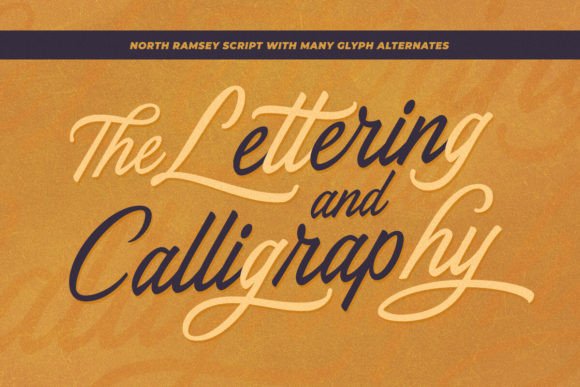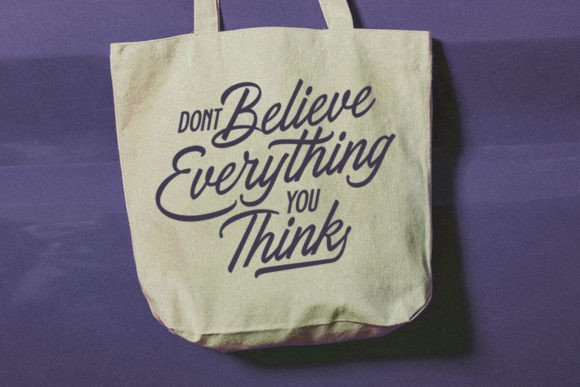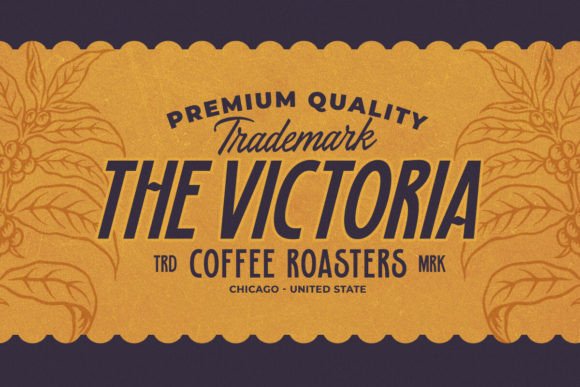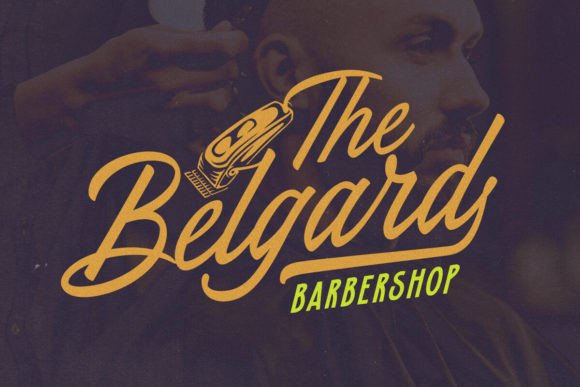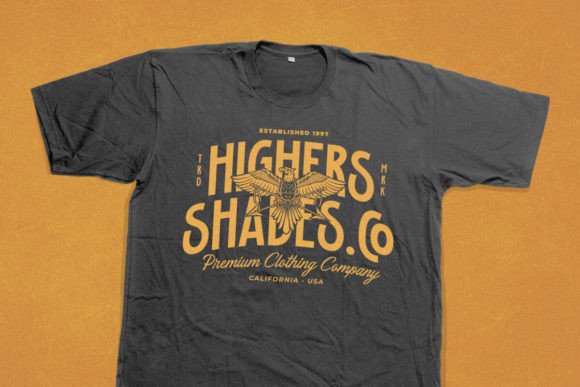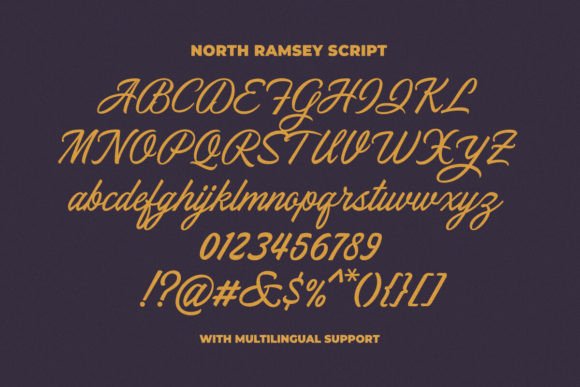
Introduction to North Ramsey Font Font
Fonts play a crucial role in design, and the North Ramsey Font font is a typeface that brings both character and versatility to any project. Whether you’re working on a branding project, a website, or a print design, the North Ramsey Font font offers a unique style that can elevate your work.
North Ramsey – Vintage Font Duo is a sans font that comes with script, both will match perfectly.
The vintage feel is really perfect for you who needs a typeface for especially logotype, apparel, branding, packaging, advertising etc .
Key Features of North Ramsey Font Font
Why Choose North Ramsey Font Font?
The North Ramsey Font font is more than just a typeface – it’s a design tool that helps you communicate your message with style and clarity. Its unique character set and versatile design make it suitable for a wide range of applications, from elegant invitations to bold headlines.
With its carefully crafted letterforms and balanced proportions, the North Ramsey Font font ensures readability and visual appeal across all mediums.
What makes North Ramsey Font font special?
The North Ramsey Font font stands out with its unique design, exceptional readability, and versatility across various design applications.